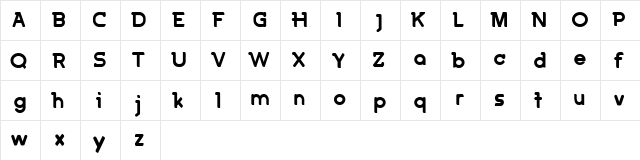
Bigote FREE Regular
Design Context for Bigote FREE Typeface
Bigote FREE takes a measured approach to typography — its balanced proportions and neutral character make it a reliable workhorse for both digital and print work.